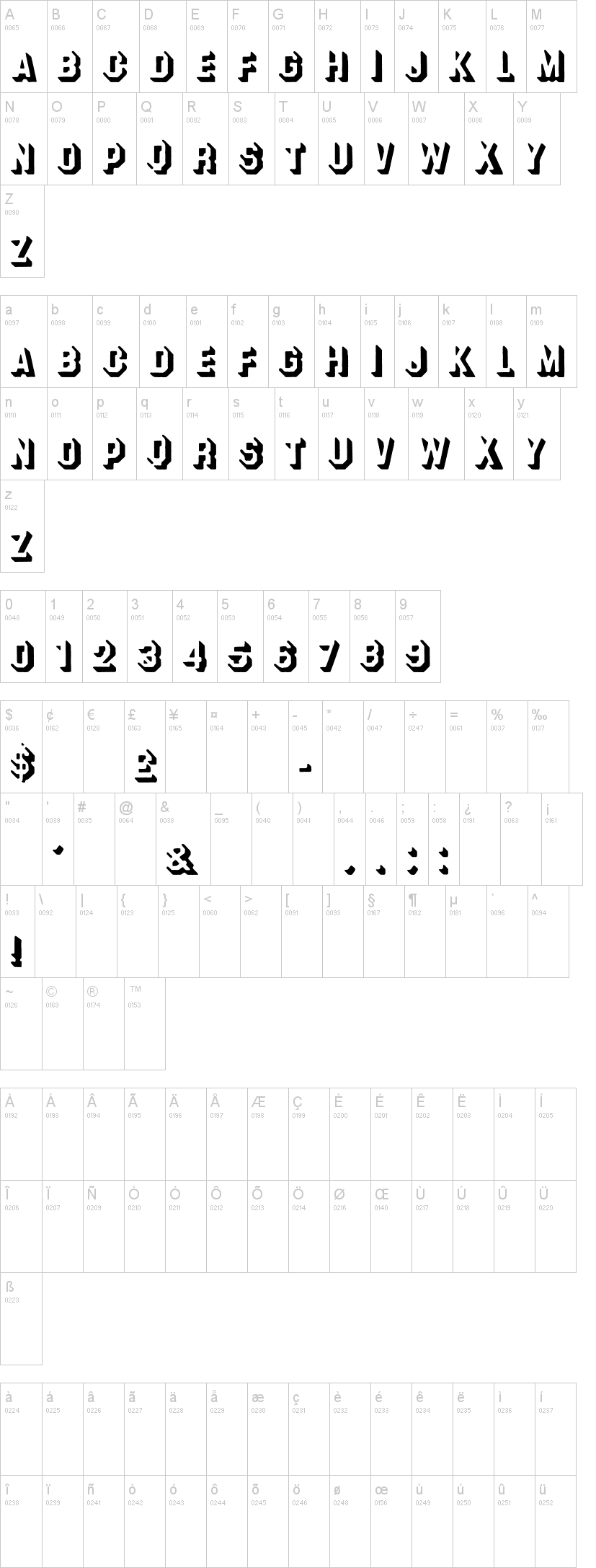
Note of the authorODEON-DROP 1.0 by COLM CLAFFERTY
I made from a stencil so some of the characters are missing and I couldn't be arsed to get too overly creative and make them myself...
Maybe there'll be a version 2.0 some time in the future.